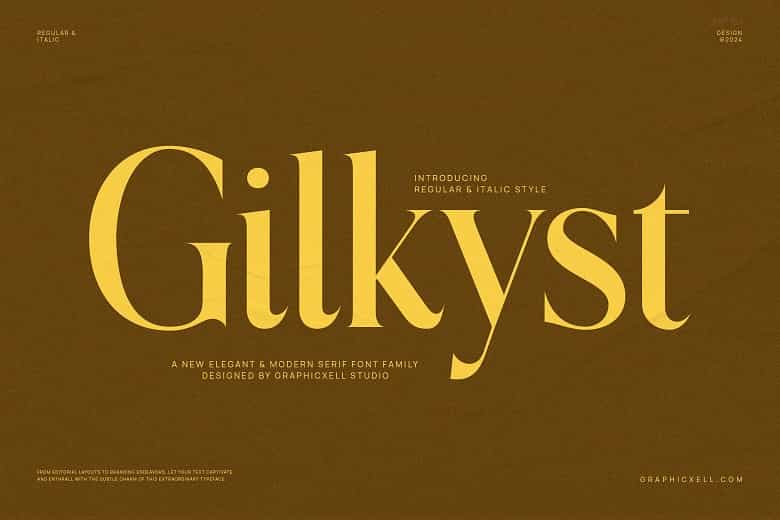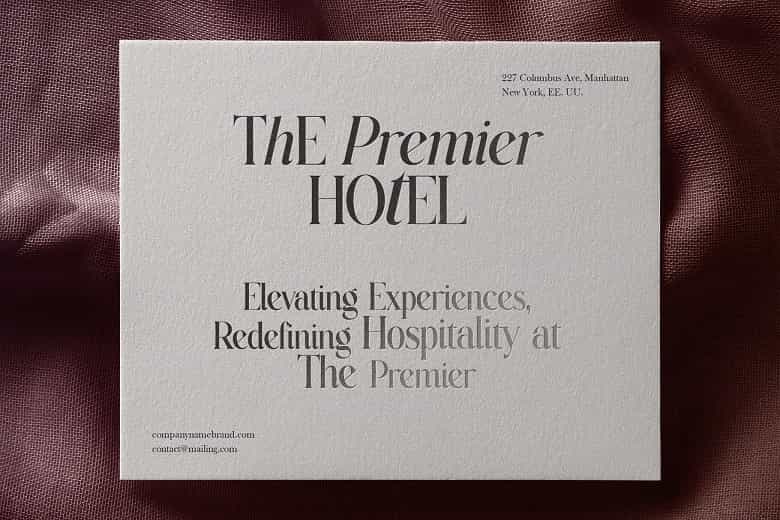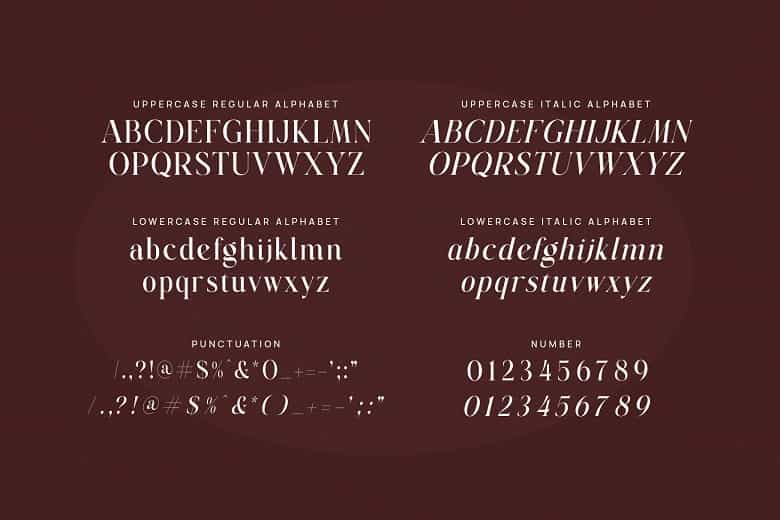
Gilkyst is a new elegant serif font that is stylish and gives the feel of a new age to the serif typography. It is appropriate for logos, for example in billboards, for fashion labels, and for posters and modern magazines and newspapers. Take this font to reach many people and get their attention to engage with them.